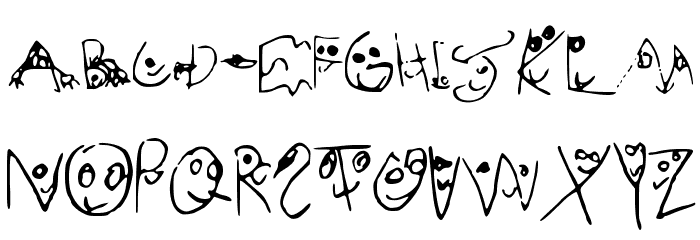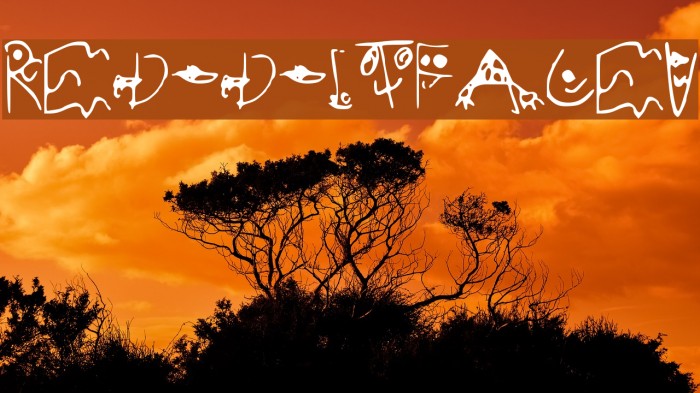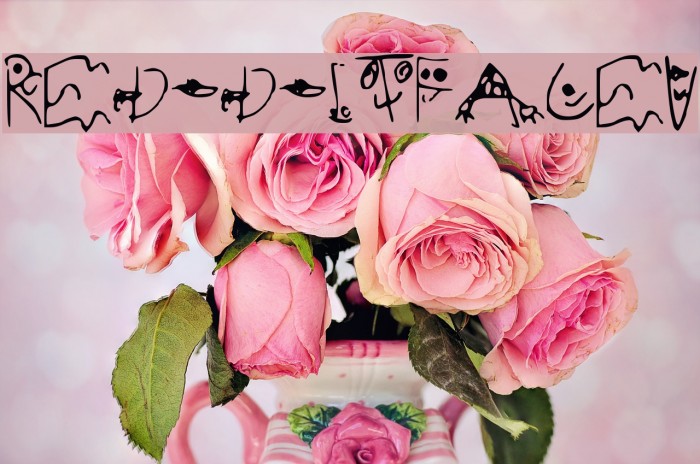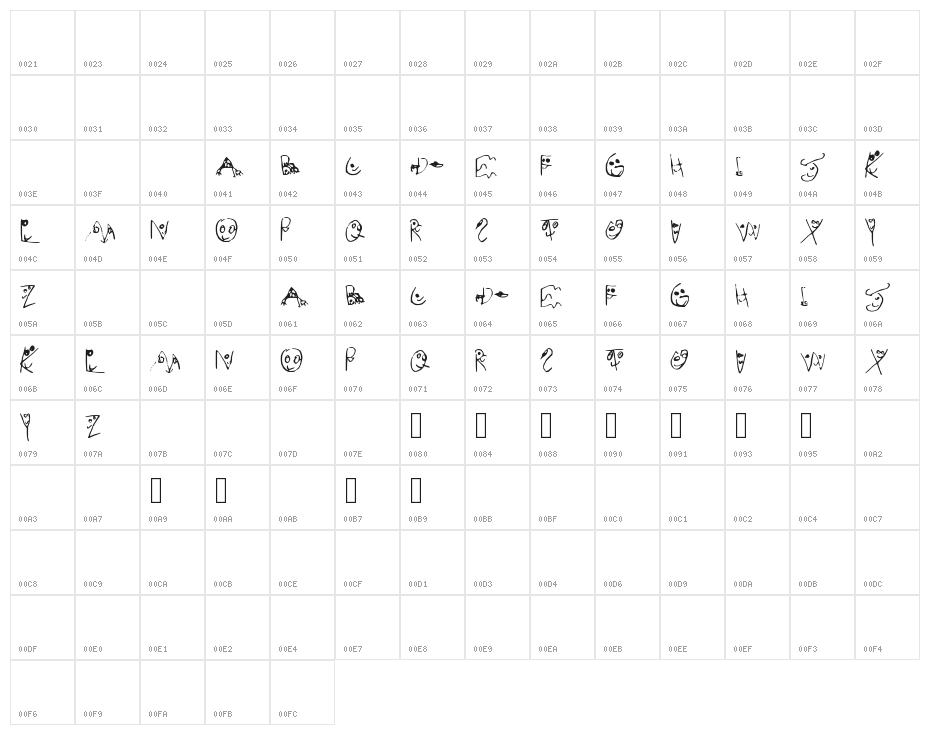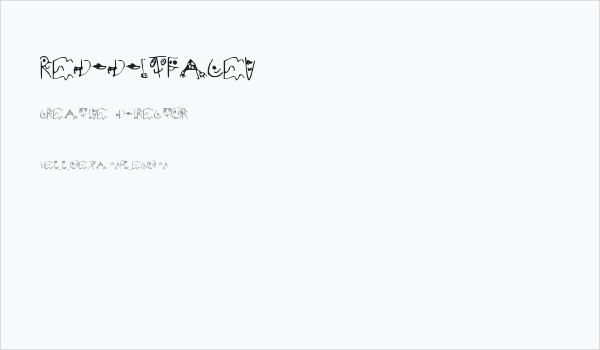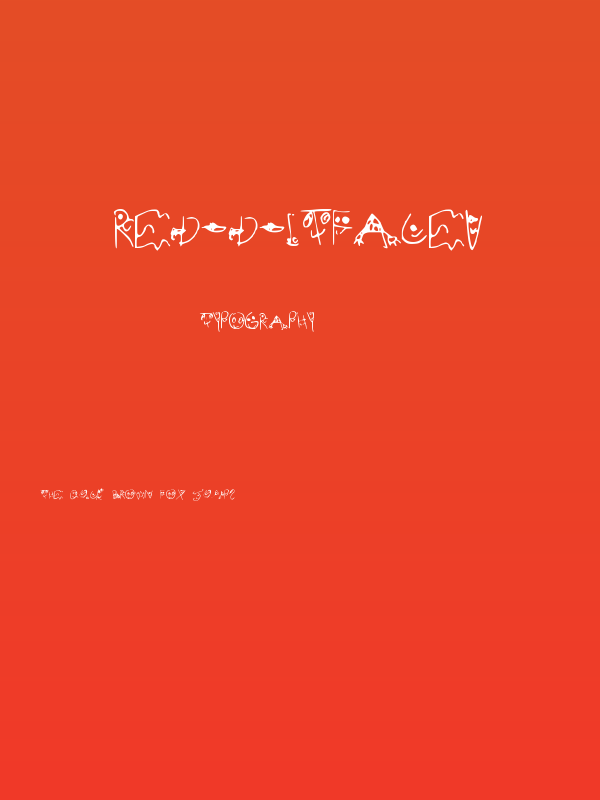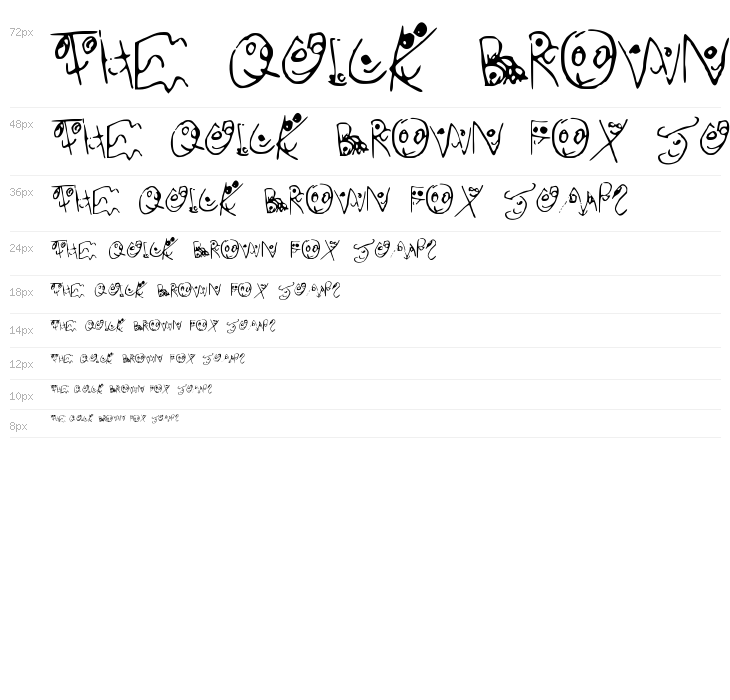
RedditFacev2 Font
This font features a whimsical and playful design, incorporating elements of faces and abstract shapes into each character. The letters are highly decorative, with each one uniquely crafted to include facial expressions or quirky embellishments. The style is reminiscent of doodles or cartoon art, making it eye-catching and full of personality. The font is not uniform, with varying stroke thicknesses and irregular character shapes, adding to its charm and artistic appeal.
A whimsical, face-inspired decorative font with playful, artistic characters.
- Proposed Projects: Ideal for children's books, playful branding, creative posters, and artistic projects that require a unique and engaging typeface.
- Use Case: Logos, Posters, Creative projects